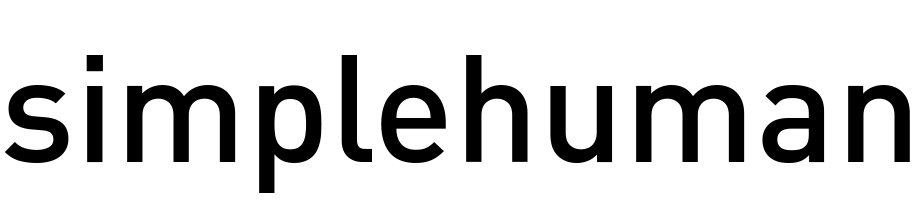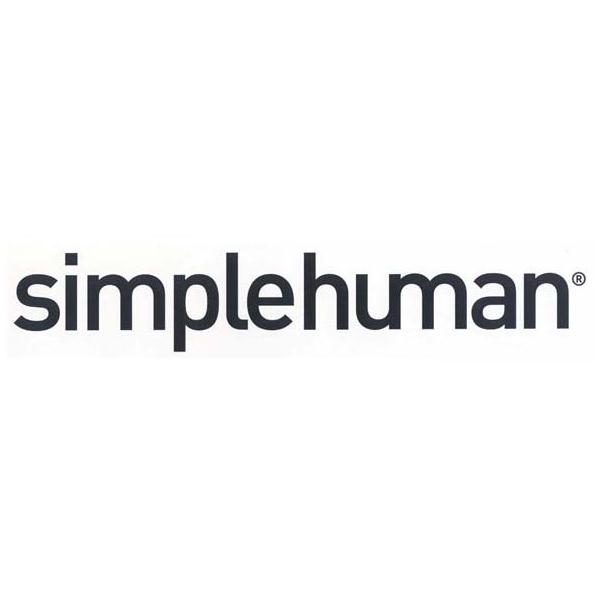
Simplehuman Font
Fonts in UseSimplehuman is a privately owned American company that designs and sells high-end housewares. The company was founded in 2000 by Frank Yang and is based in Torrance, California.
Simplehuman's logo probably uses the FF Din Medium font, based on the German Standards Organization font DIN 1451. It's a grotesque sans-serif typeface designed by Albert-Jan Pool. You can find more details about the font here.